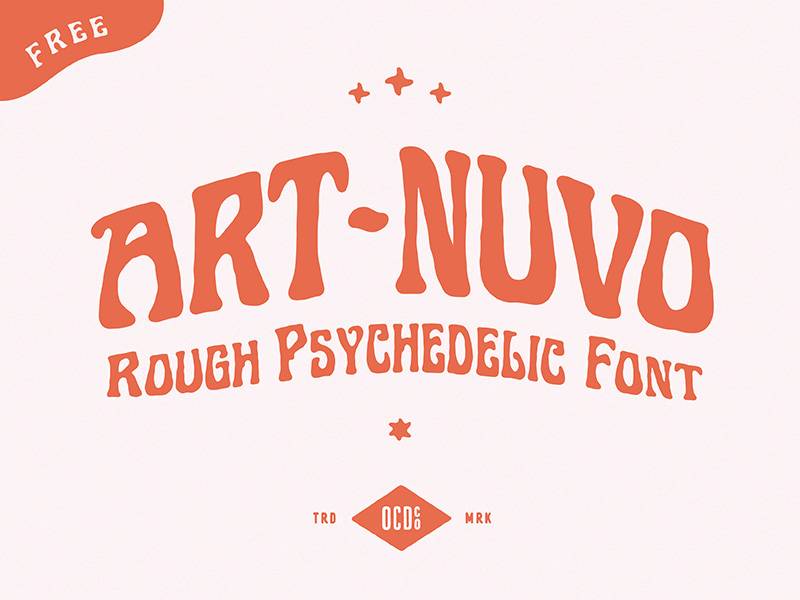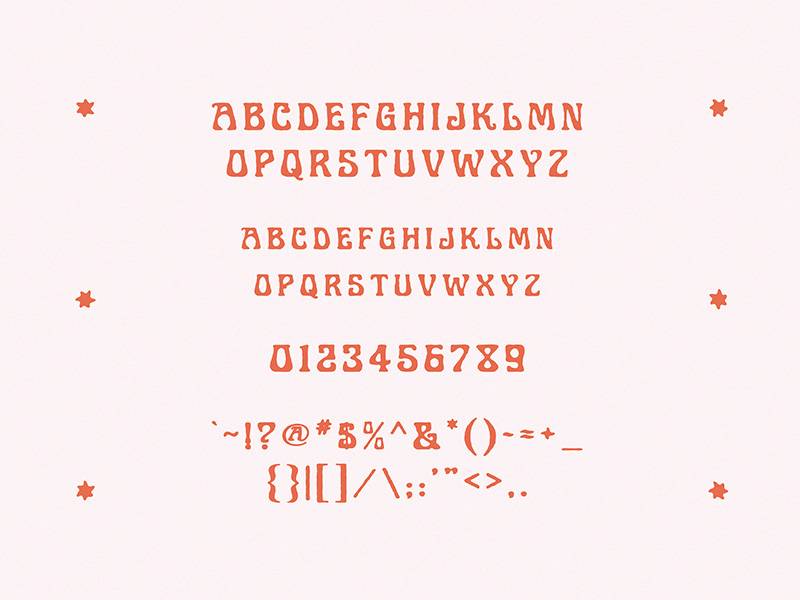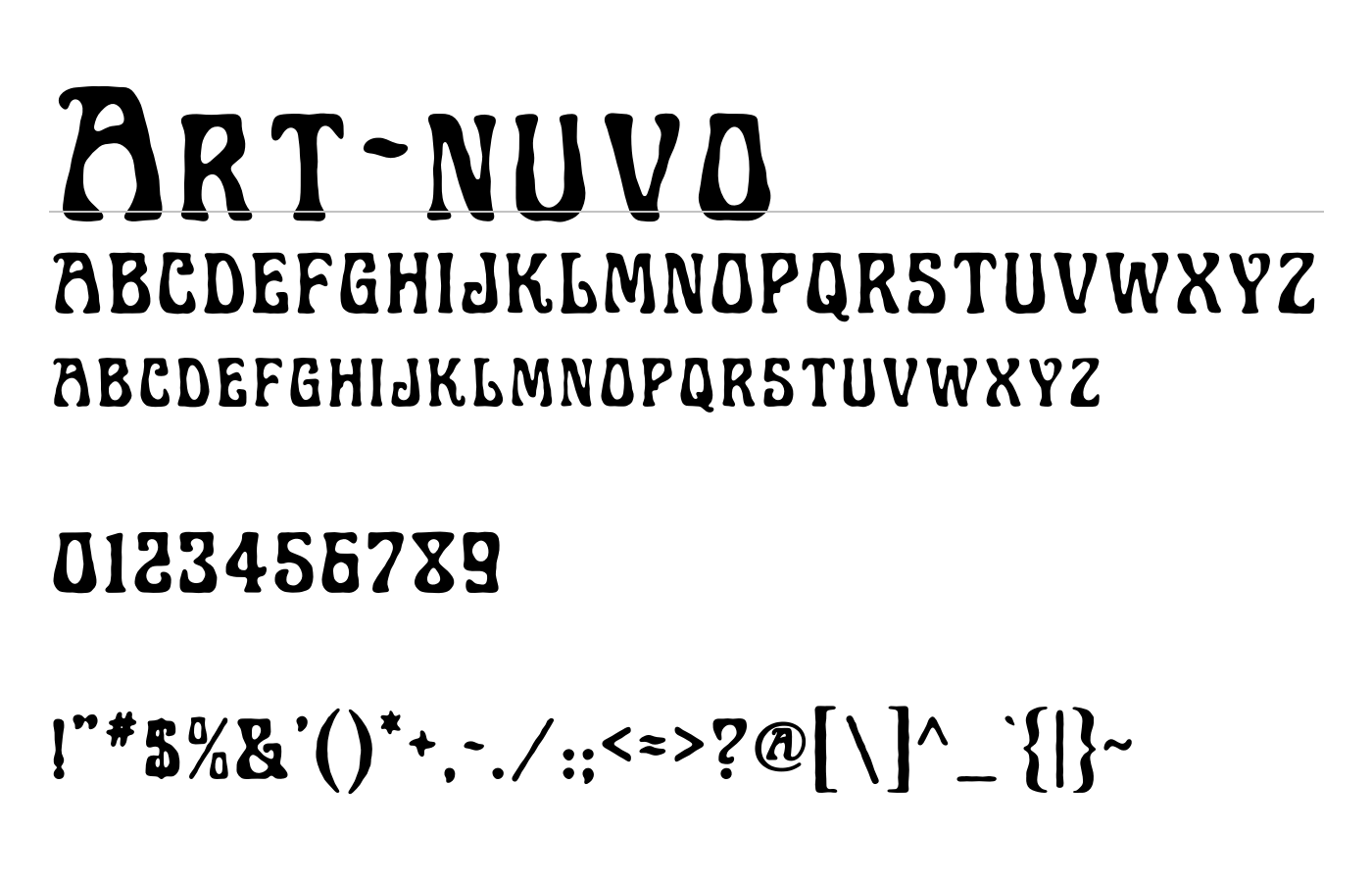
Art Nuvo Display is a quirky, bold serif font with an artistic, vintage feel inspired by early 20th-century design. Its uneven stroke widths and irregular shapes give it a playful yet distinctive personality, making it perfect for eye-catching headlines, posters, and creative branding that seeks a nostalgic or retro vibe. This font works best when used sparingly to highlight unique identity and charm.
Art Nuvo Display Font
About Art Nuvo Display Font
| Font family | Art Nuvo Display Font |
| Designer | Phil MacIsaac - OPENCITYDESIGNCO |